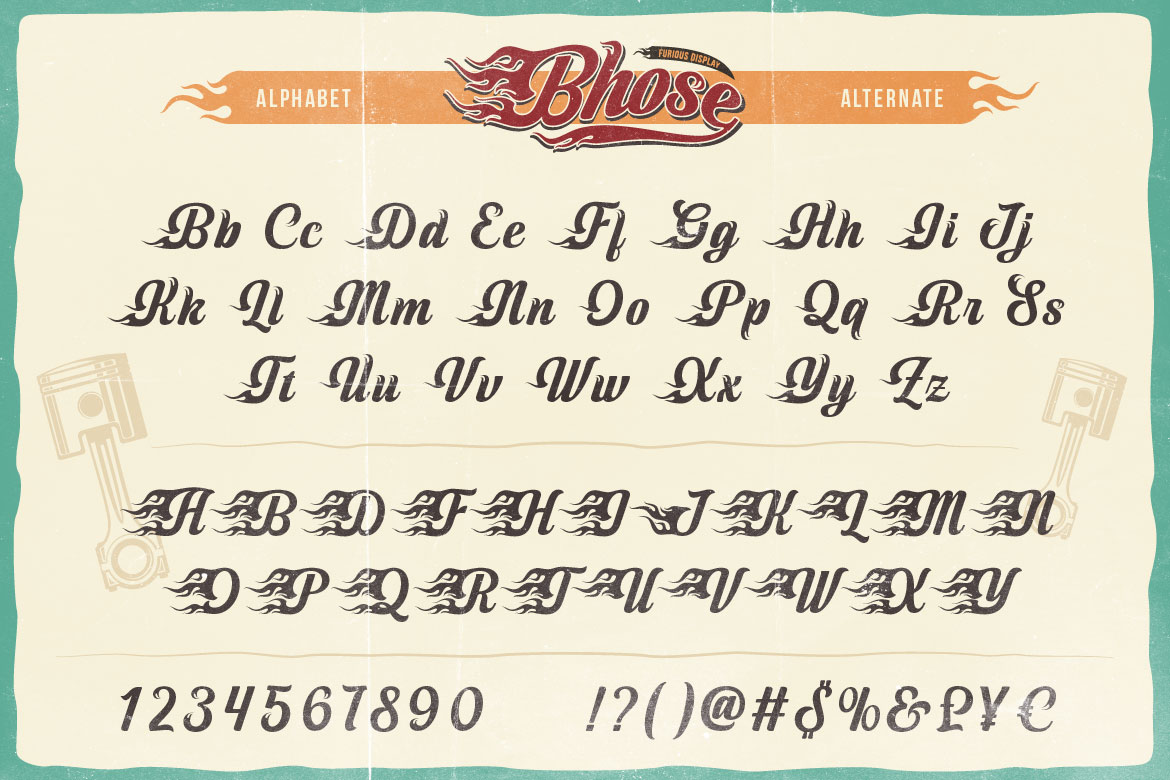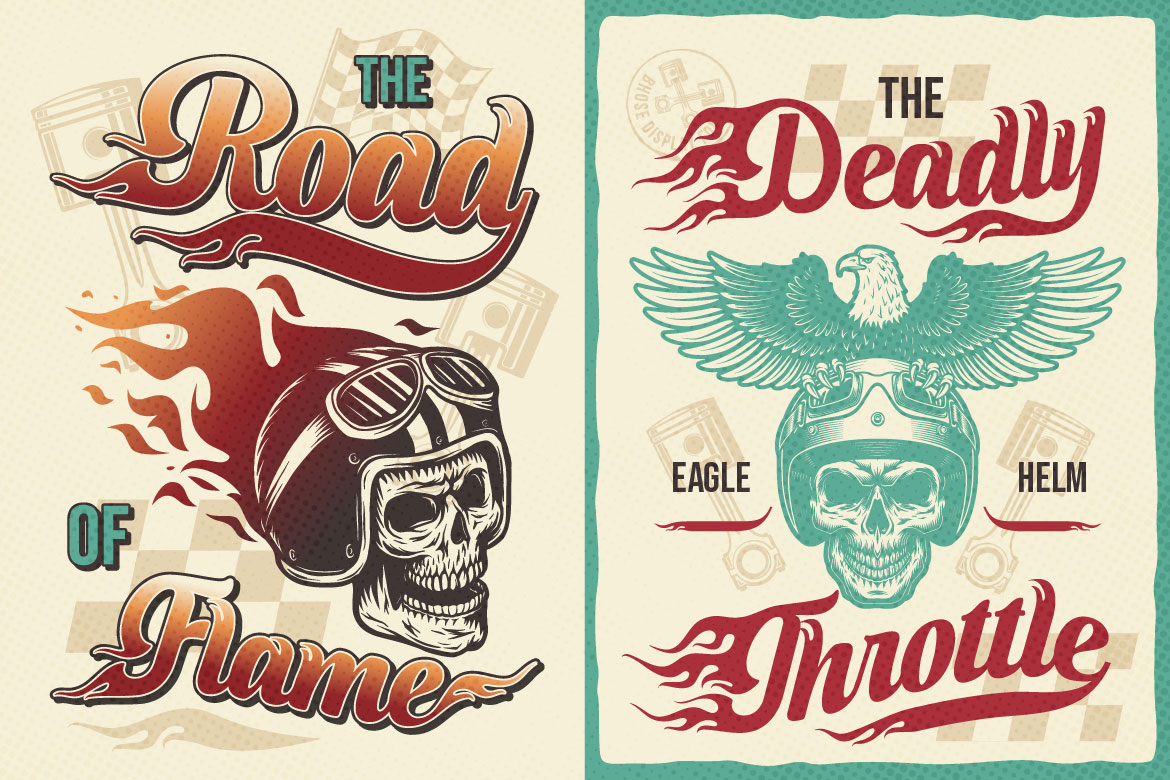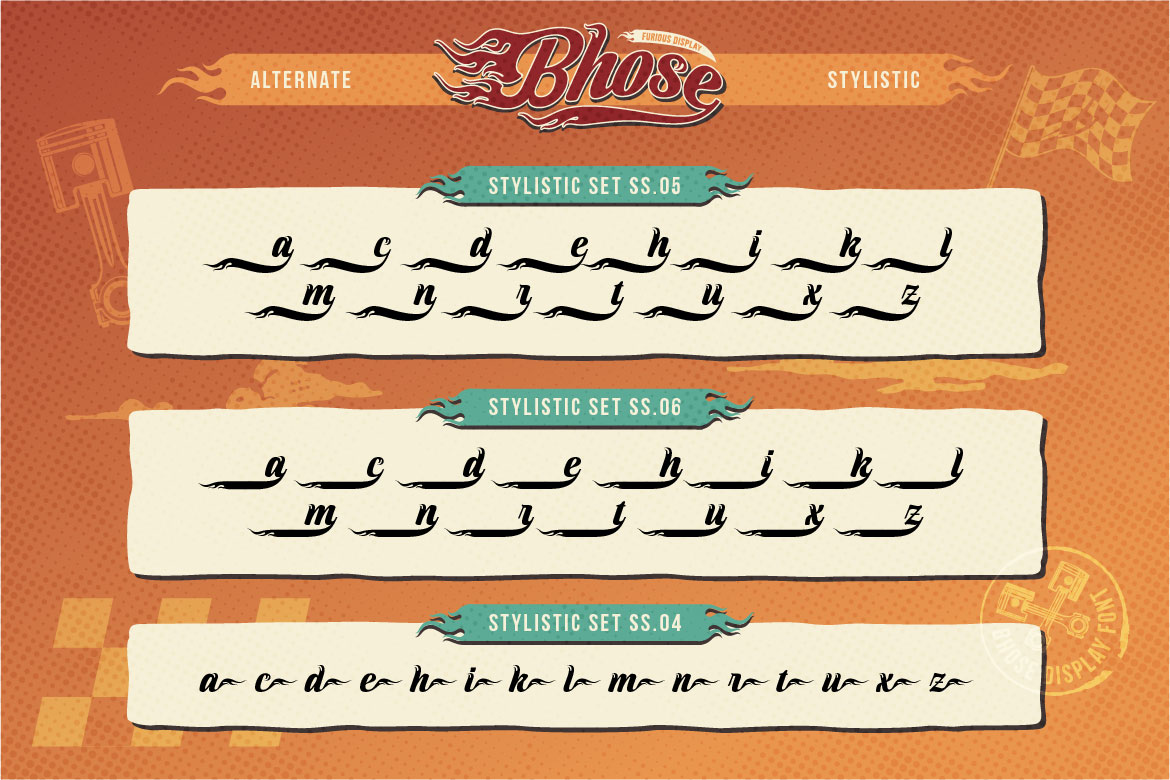
Bhose
Proudly present, our flame themed font, Bhose! With multiple alternate styles, allowing you to create unique and customized designs. This font is perfect choice for adding a touch of heat and exctement to any project. Stand out from the crowd with this unique and eye catching typeface. Whether you’re designing a poster, logo, or media social graphic.
• A – Z set (Uppercase & Lowercase)
• Number
• Punctuation
• Alternates
• Multilingual